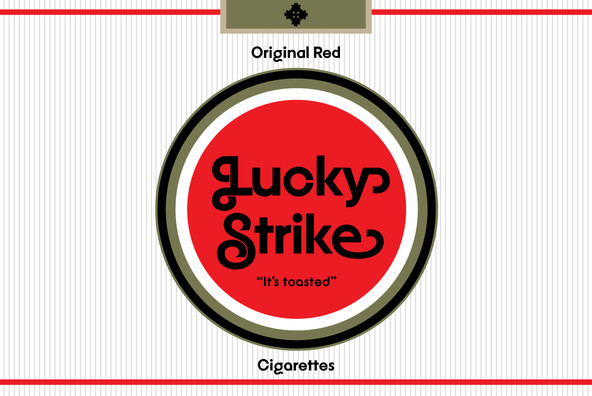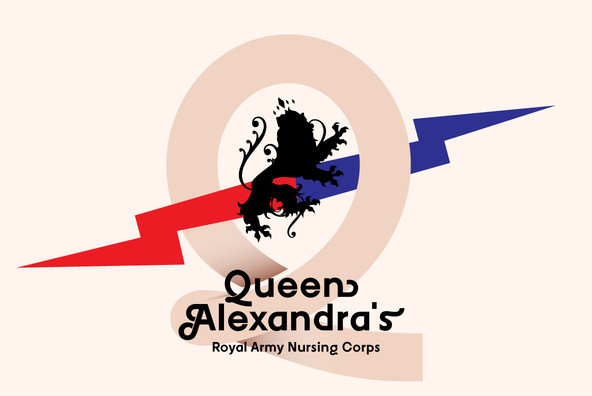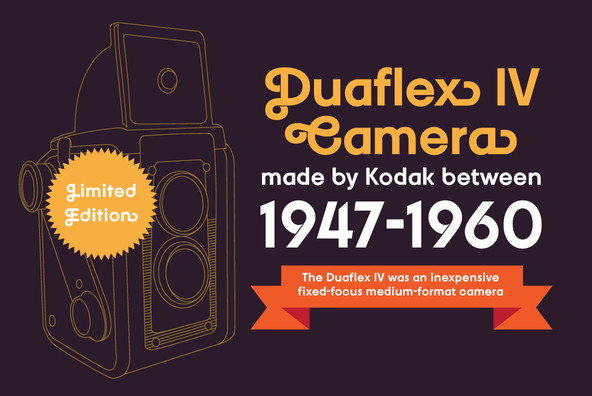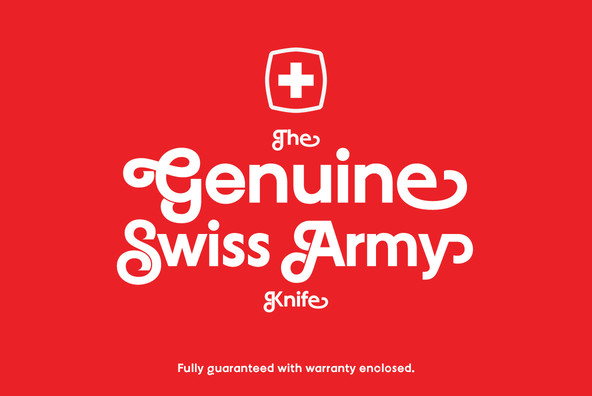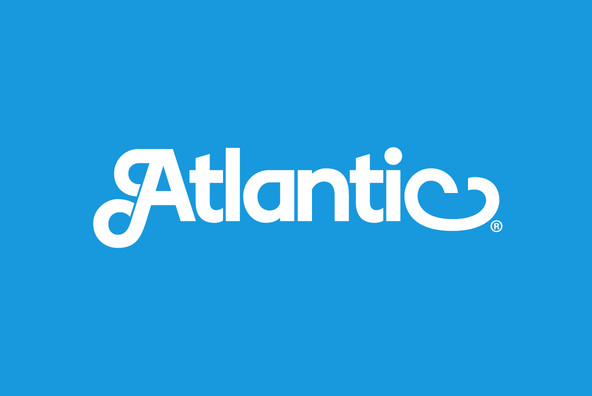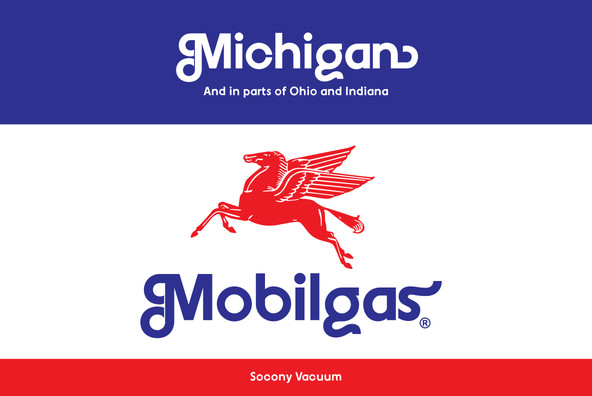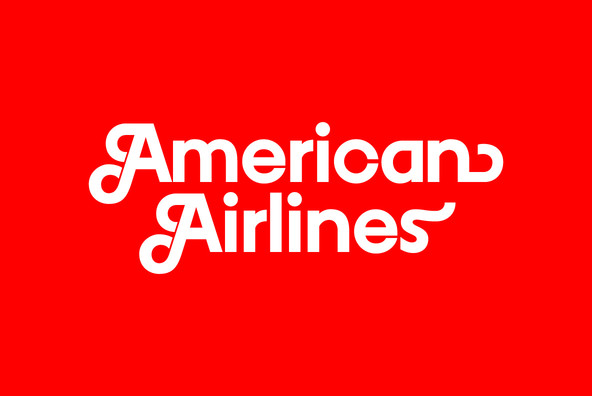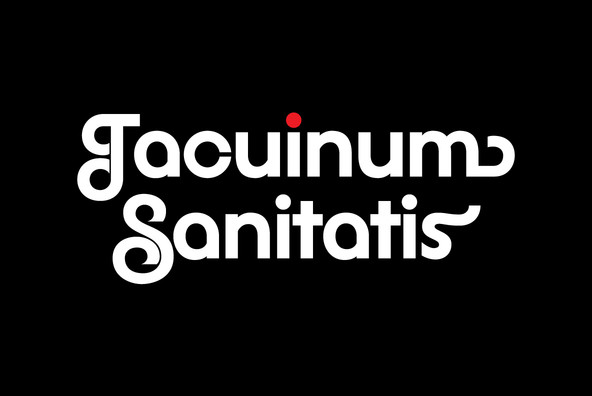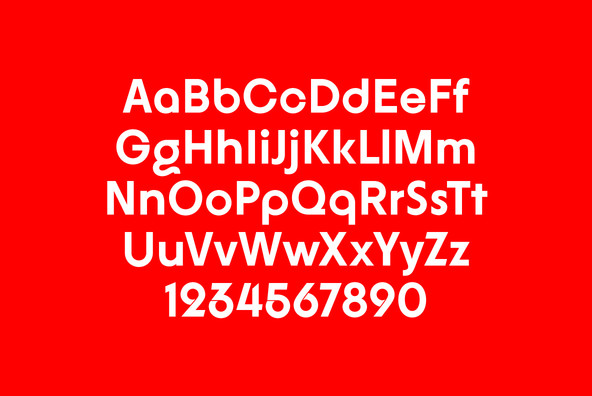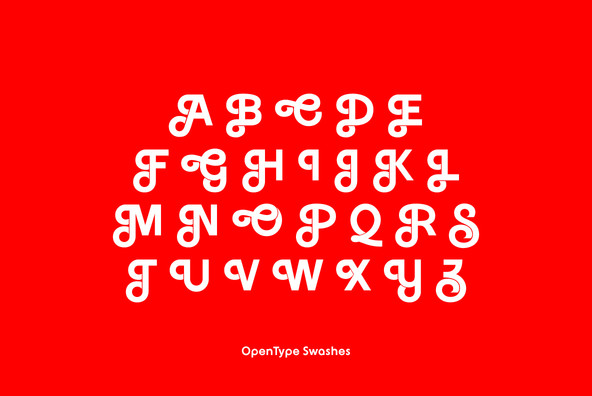
YWFT Agostina Alternate
Foundry: YouWorkForThem
YWFT Agostina became one of YouWorkForThem's most successful typefaces upon its release in 2008. With nearly 300 characters, special swash options and full Latin letter designs among other special features, YWFT Agostina offered up truly endless typographic possibilities and is one of our all-time bestsellers. Fast forward to 2011, where we are very pleased to present YWFT Agostina Alternate, an updated and improved version of the original. YWFT Agostina Alternate retains all of the wonderful swash forms, letter counts and Opentype features of the mothership, but removes some of the overly-decorative ink trap cuts and offers a stylish, aerodynamic smoothness for maximum lowercase velocity.